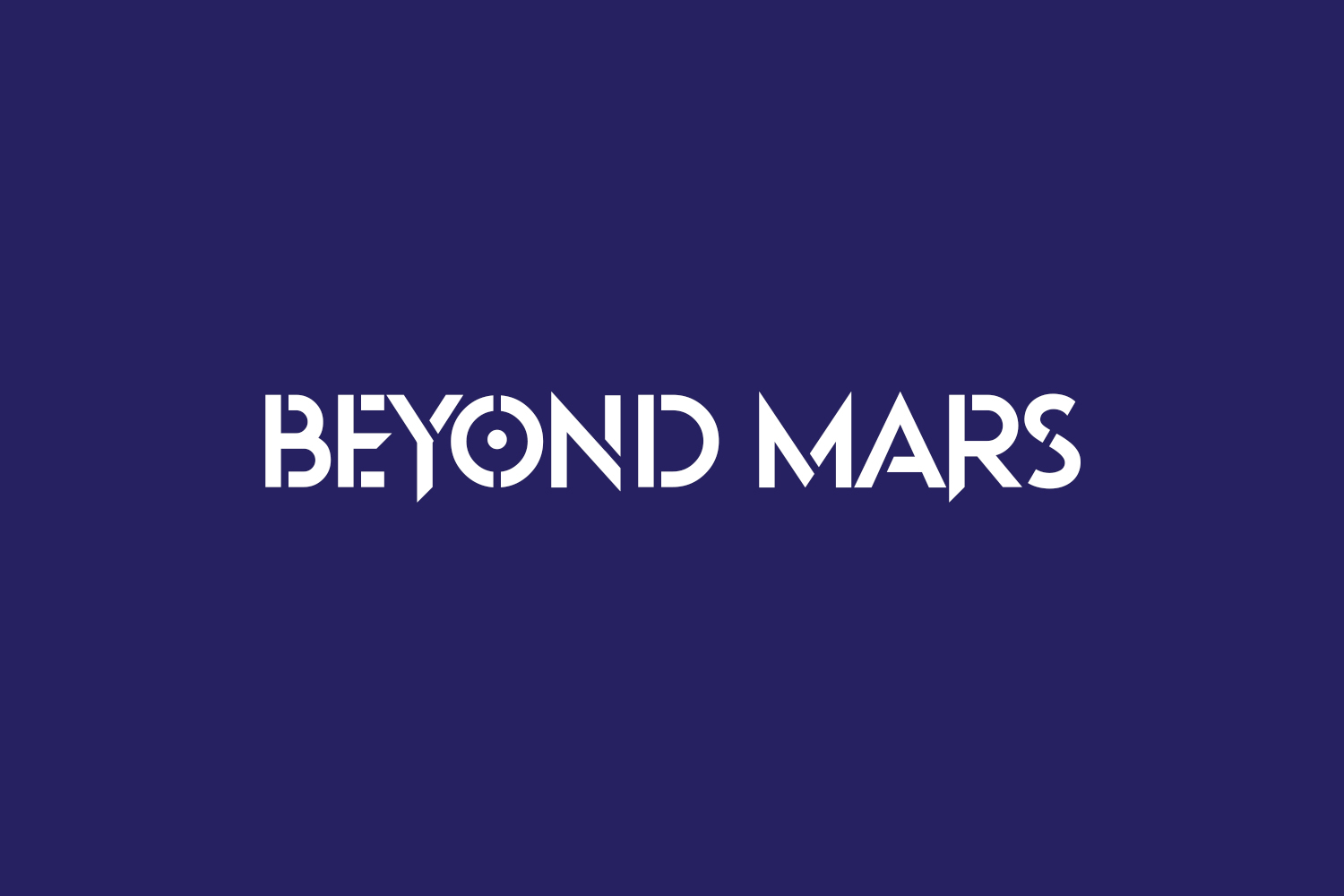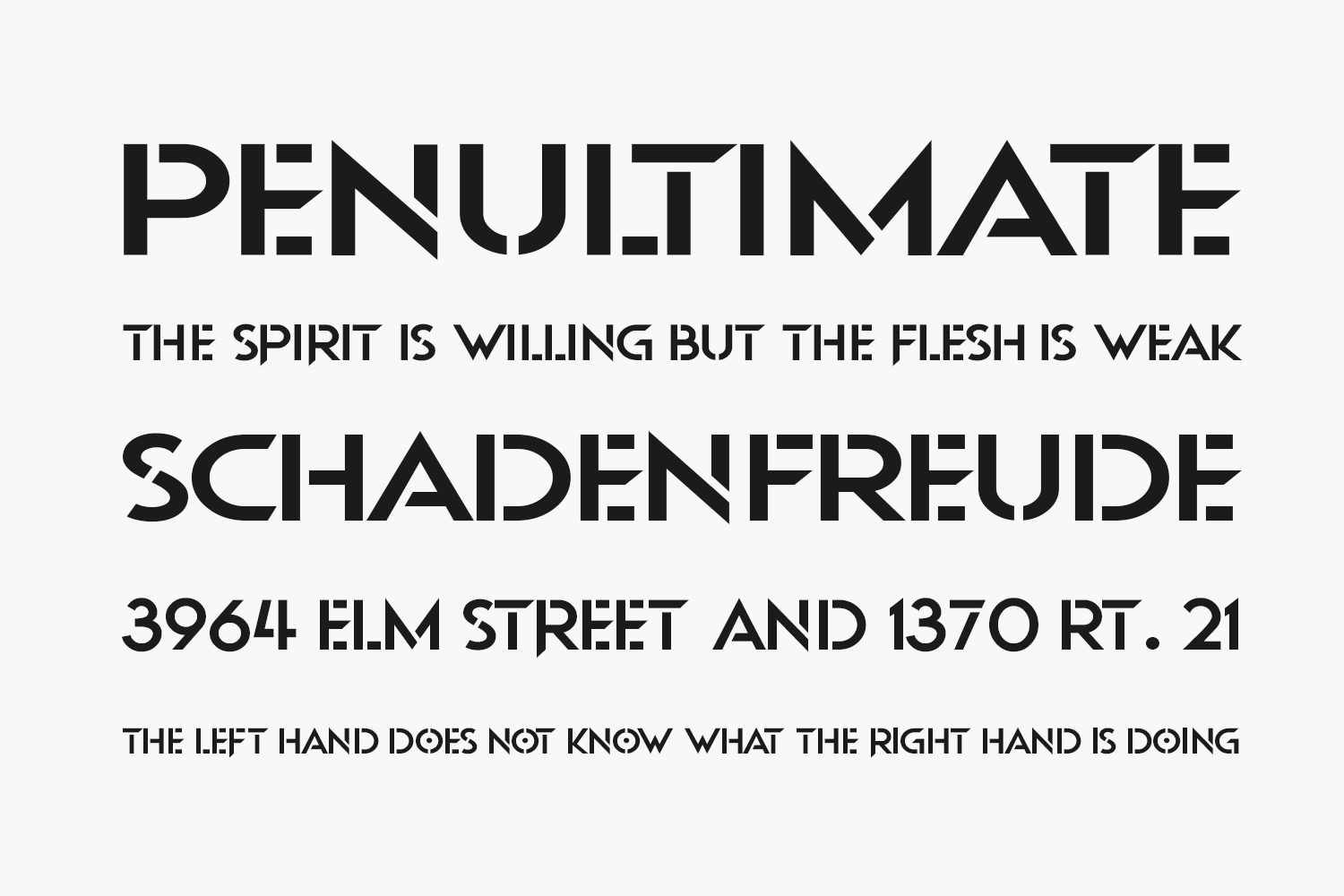
Beyond Mars Free Font Family is a modern and angular display font in a clean, crisp style. It is suitable for logotype, headline font, corporate identity, brand identity, apparel industry, poster, music, movie, game, magazine, book, comic, cartoon, YouTube, Instagram, website, or any of your creative design projects. Beyond Mars Free Font Family was designed by Darrell Flood and is free for personal use only. Please purchase the full version for commercial use.
Designed by Darrell Flood